Summer fashion fonts trends continue evolving every year as brands search for fresh and stylish ways to capture attention. In the fashion industry, typography plays a huge role in shaping brand identity, creating emotional connections, and making visual campaigns feel modern and memorable. From luxury editorials and beachwear branding to social media promotions and fashion packaging, fonts help communicate the personality of a fashion brand instantly.
Summer fashion design often focuses on feelings of freedom, warmth, elegance, confidence, and creativity. Typography becomes one of the most powerful visual tools for expressing those emotions. Whether designers are creating minimalist luxury campaigns or playful tropical branding, choosing the right font can completely transform the final look.
In this article, we’ll explore the latest summer typography trends and recommend ten stylish fonts every designer should know: Schindler, Viona Collins, Nebos, Kefhilla, Fishera, Viospace, Cllerista, Monna Kalingga, Feriska, and Flamengo.
Why Typography Matters in Summer Fashion Design
Typography in fashion is more than simple text. Fonts become part of the visual storytelling itself.
Fashion brands use typography to communicate:
- Style
- Mood
- Luxury
- Confidence
- Personality
- Seasonal atmosphere
For summer collections, typography often feels:
- Light and airy
- Elegant
- Playful
- Bold
- Tropical
- Minimalist
The right font can make a fashion campaign feel premium, trendy, youthful, or timeless.
Summer Typography Trends Designers Love
1. Elegant Serif Fonts
Elegant serif fonts remain popular in summer fashion branding because they create a luxurious and editorial look.
Fashion magazines, jewelry brands, and luxury clothing labels often use serif typography to communicate sophistication and timeless beauty.
These fonts work beautifully for:
- Editorial headlines
- Fashion lookbooks
- Luxury packaging
- Beauty campaigns
2. Minimalist Sans-Serif Fonts
Minimalist typography continues dominating modern fashion branding.
Clean sans-serif fonts create:
- Professional aesthetics
- Modern visual identity
- High readability
- Premium simplicity
Minimal typography allows photography and layouts to stand out while maintaining stylish balance.
3. Handwritten and Signature Fonts
Script fonts are trending heavily in summer fashion because they feel personal, elegant, and feminine.
These fonts are often used for:
- Boutique branding
- Cosmetic packaging
- Social media quotes
- Fashion logos
Handwritten typography adds warmth and personality to fashion campaigns.
Best Summer Fashion Fonts Trends
Schindler
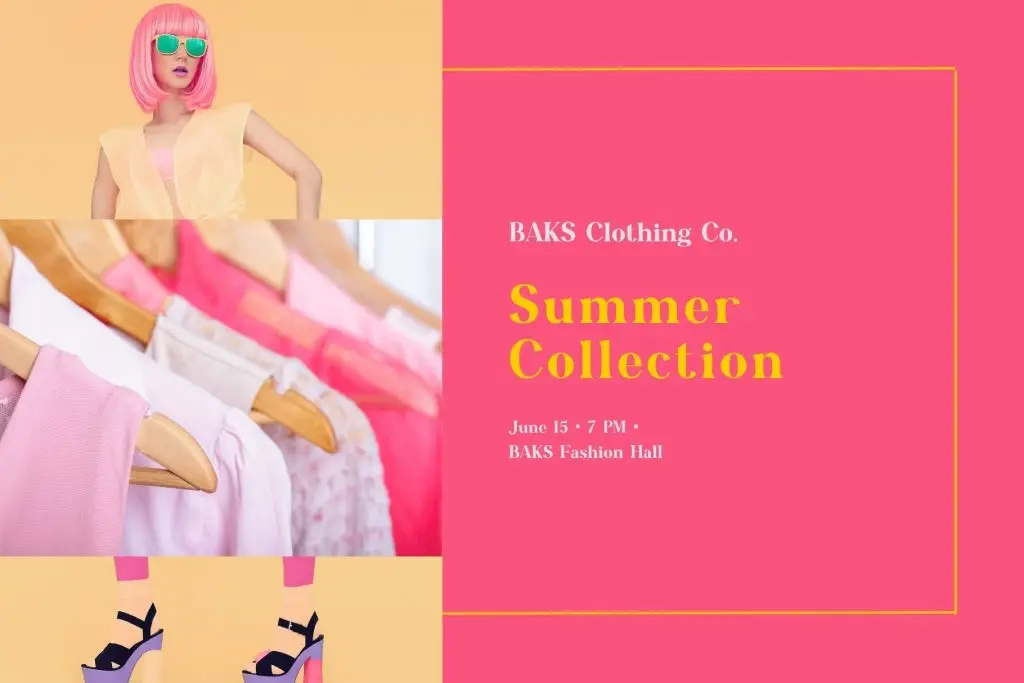
Introducing Schindler, a modern serif typeface designed to elevate your creative projects with elegance and precision. Its carefully crafted letters combine a modern look with a timeless, polished style, making it perfect for social media designs, beauty branding, advertising, and versatile applications. Schindler’s clean and refined letterforms ensure your designs communicate sophistication while maintaining readability and visual appeal.
Viona Collins
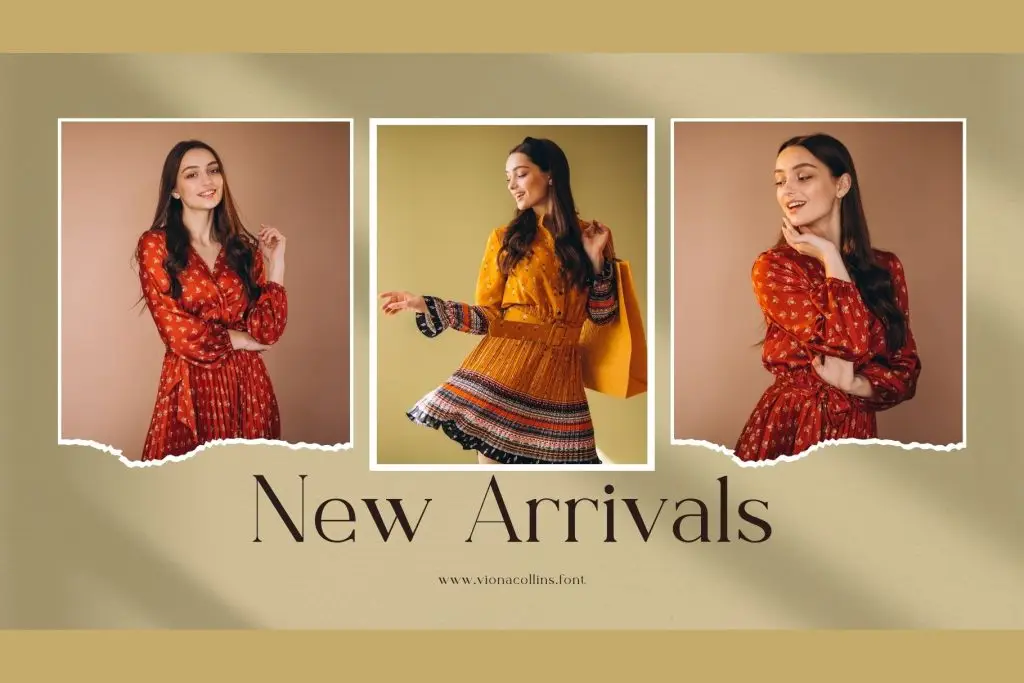
Discover Viona Collins, a modern serif font crafted to elevate your creative projects with timeless beauty. Viona Collins is a modern serif font that balances elegance and modernity. Each letter is meticulously designed to strike the perfect balance between contemporary style and classic elegance, ensuring refined readability and visual harmony.
Nebos
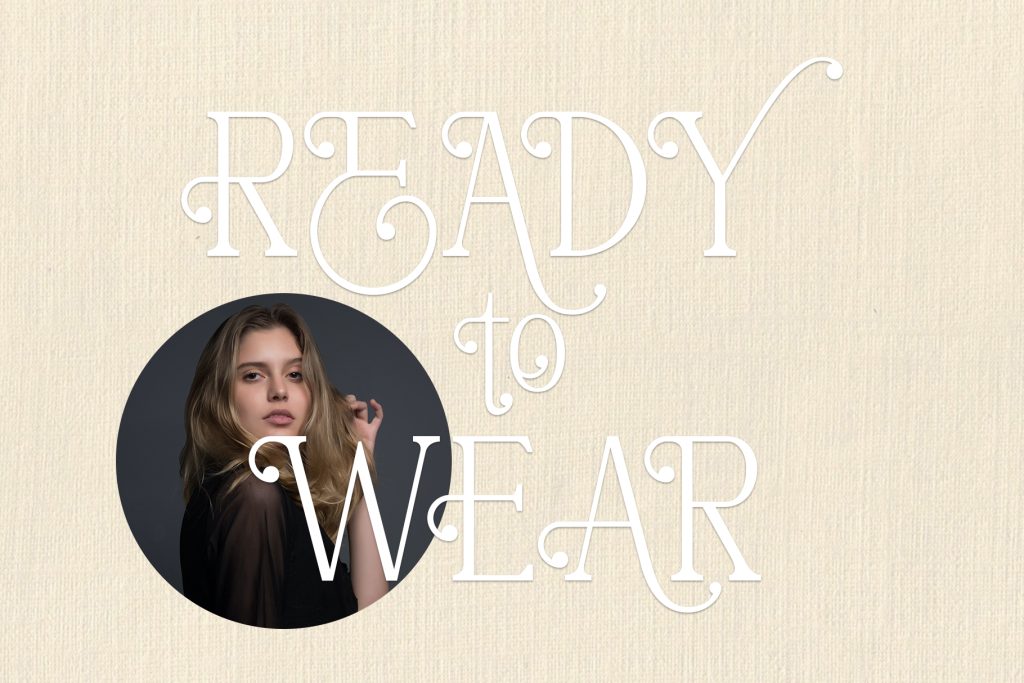
Introducing Nebos, an elegant serif typeface that elevates the standard serif. This elegant serif typeface features modern letter alternatives and unique ligatures, making it perfect for a wide range of design projects.
Kefhilla
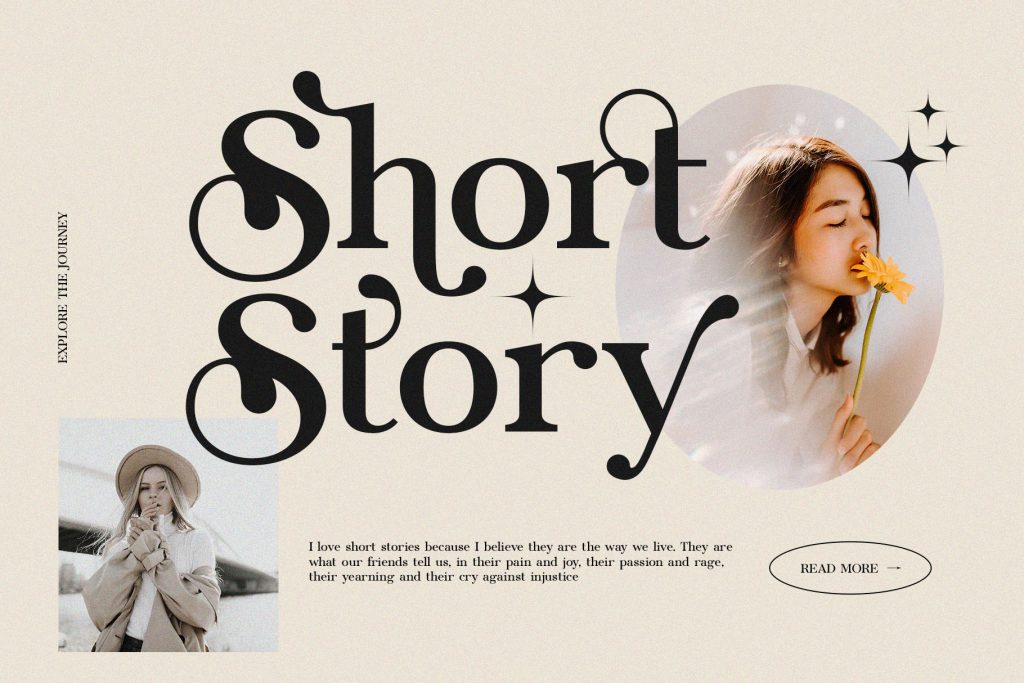
Kefhila is a feminine indie serif font with unique organic letterforms that blend curves and angles for a sophisticated yet whimsical design.
Fishera
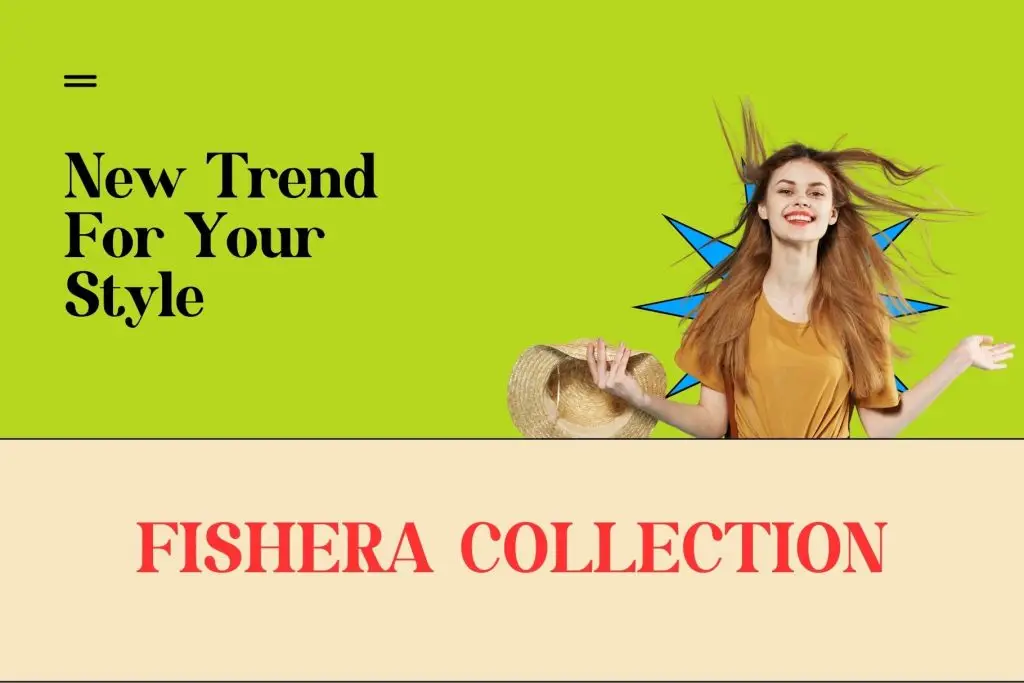
Introducing Fishera, a modern serif font designed to bring elegance and precision to your creative projects. Whether you’re creating luxury branding, social media graphics, advertising campaigns, or fashion-related designs, Fishera delivers clean, versatile letterforms with a perfect balance of modernity and sophistication. Each letter is meticulously crafted to ensure maximum legibility and timeless style.
Biospace
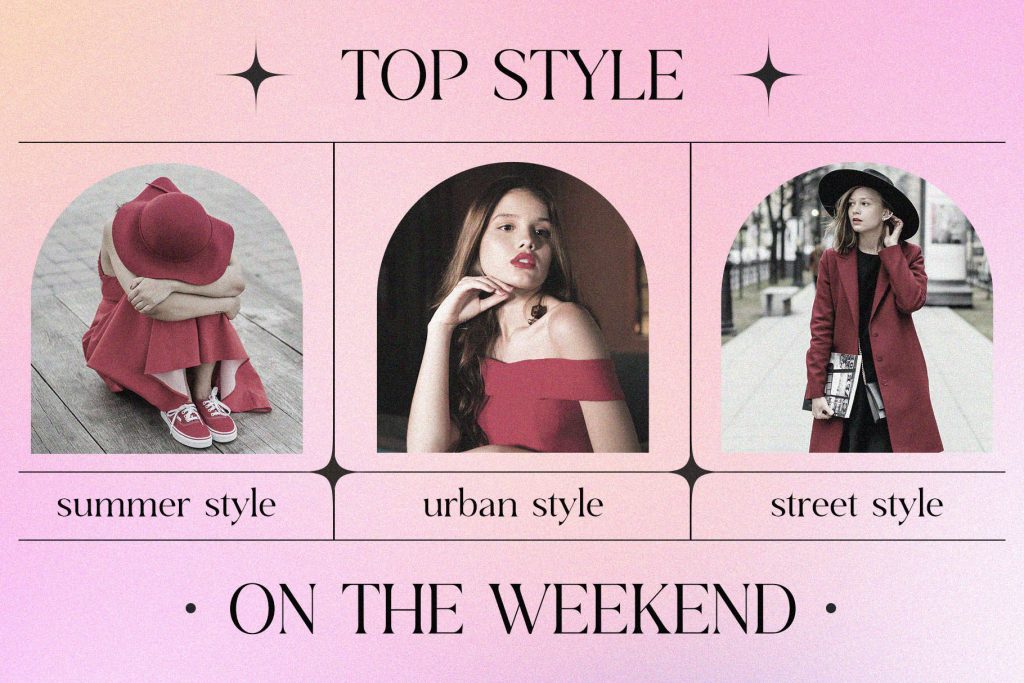
Biospace is a modern serif typeface that combines sleek, contemporary design with elegance, ideal for luxury, beauty, and social media projects.
Cllerista
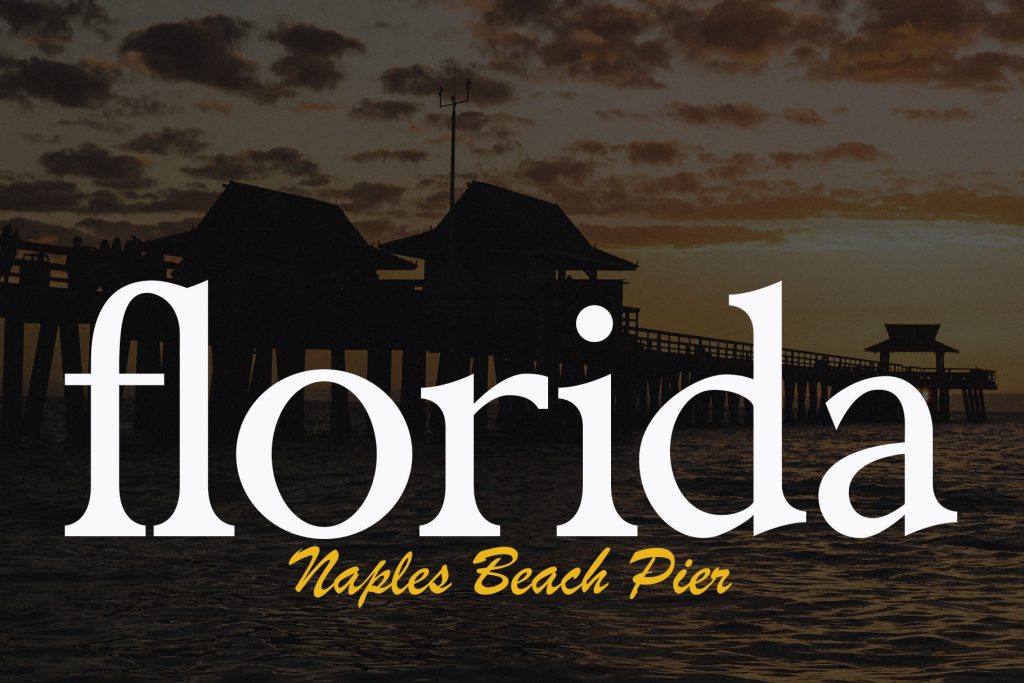
Introducing Cllerista, a classic and classy serif font that effortlessly blends modern aesthetics with a nostalgic feel. If you’re looking for a font that perfectly blends classic sophistication with a contemporary touch, Cllerista is the ideal choice for adding elegance to your designs.
Monna Kalingga
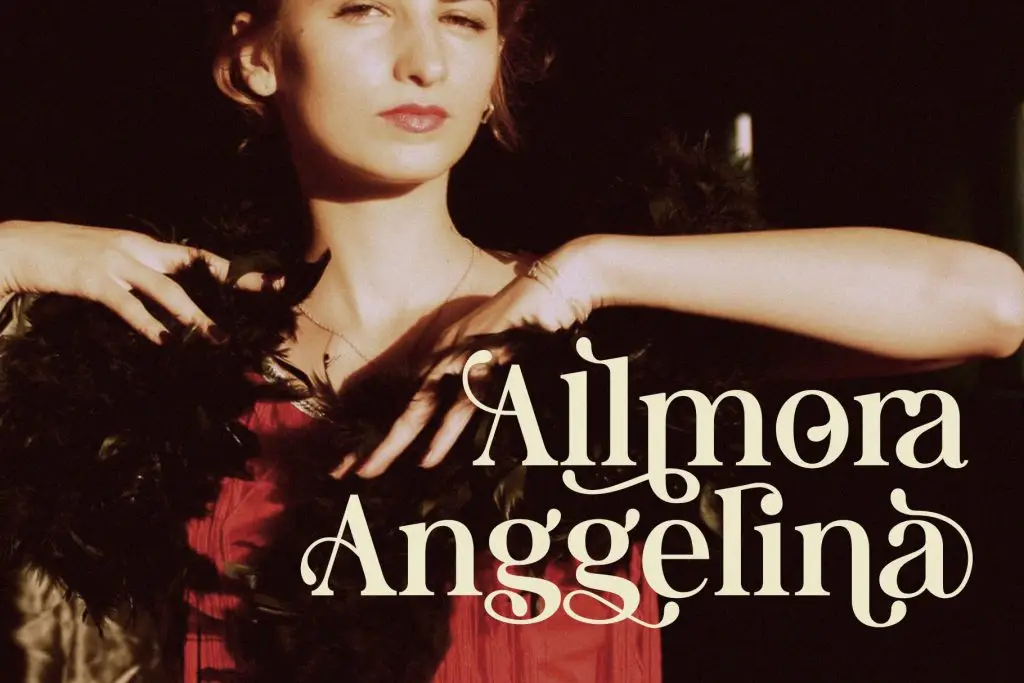
Monna Kalingga is a decorative serif font with elegant letters and ligatures. Its precise and elegant lettering, along with ligature and alternate features, gives you versatile options for every design.
Feriska
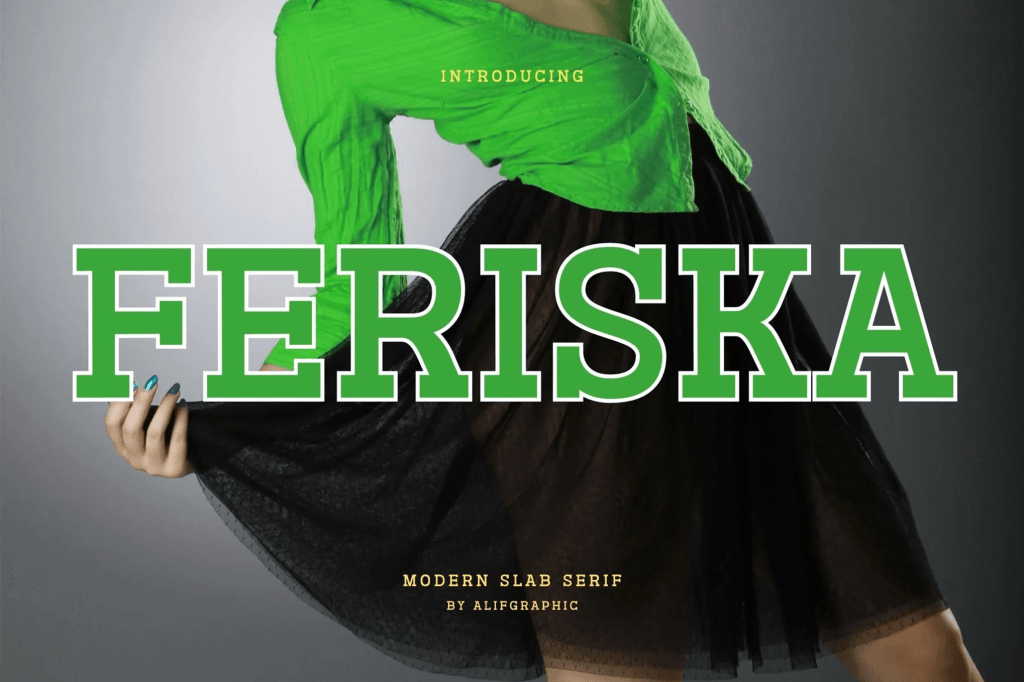
Feriska is a series of exquisite fonts designed to enhance your creative projects. Immerse yourself in the allure of meticulously crafted letters that strike the perfect balance between modernity and elegance. Our commitment to precision shines through in the creation of each letter, prioritizing flawless design to ensure flawless typographic expression.
Flamengo
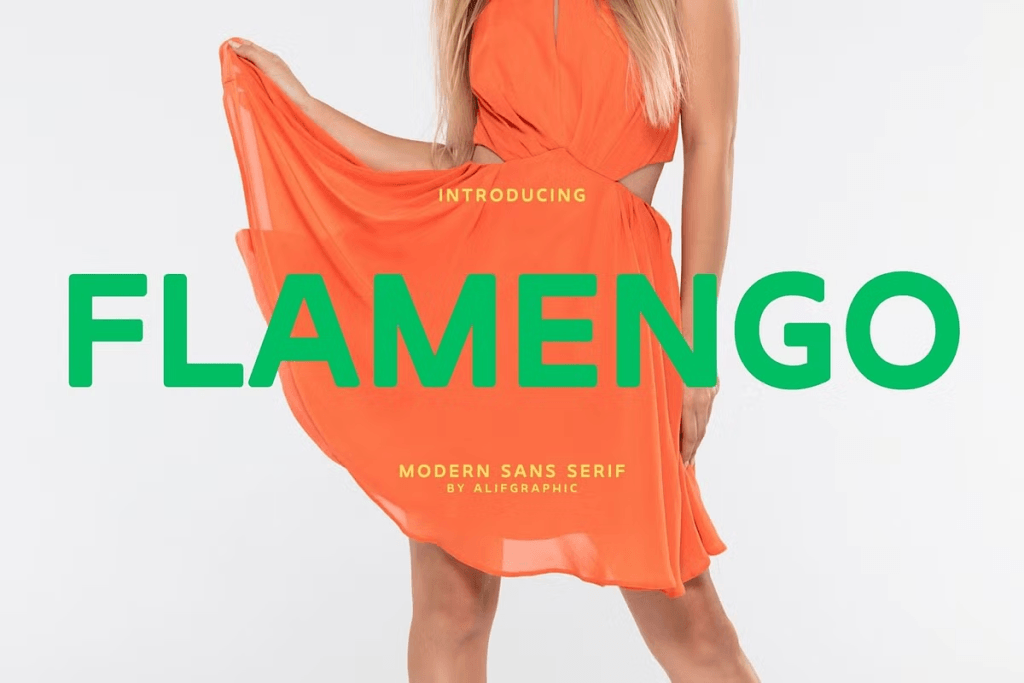
Flamengo’s neat script is perfect for modern, eye-pleasing writing. It looks modern, still elegant when used for writing. Tidiness in the manufacture of each letter is our top priority. You can have fun and be creative using the font products we make, because the results will definitely be very satisfying.
Tips for Choosing Summer Fashion Fonts
Match Typography with Brand Identity
Every fashion brand has a unique personality. Choose typography that reflects:
- Luxury
- Minimalism
- Creativity
- Playfulness
- Modernity
Consistency helps strengthen brand recognition.
Combine Fonts Carefully
Most fashion designs work best using:
- One headline font
- One supporting body font
Too many font styles can make layouts feel cluttered and unprofessional.
Focus on Readability
Even highly decorative fonts should remain readable across:
- Social media
- Packaging
- Websites
- Advertisements
Fashion typography should feel stylish without sacrificing clarity.
Conclusion
These summer fashion font trends show how typography continues shaping modern fashion branding and visual storytelling. Fonts are not only decorative elements, but they also communicate personality, mood, luxury, and emotion instantly.
Typography remains one of the most powerful tools every fashion designer should master, especially during vibrant and highly visual summer campaigns.